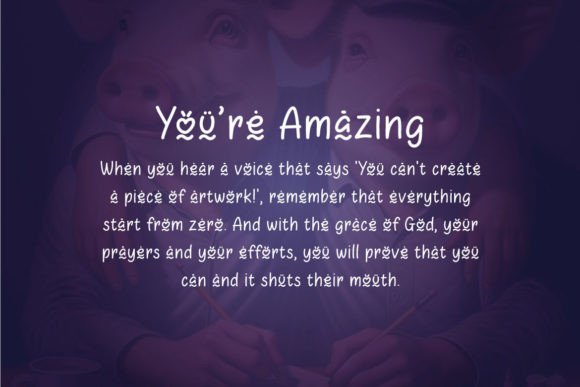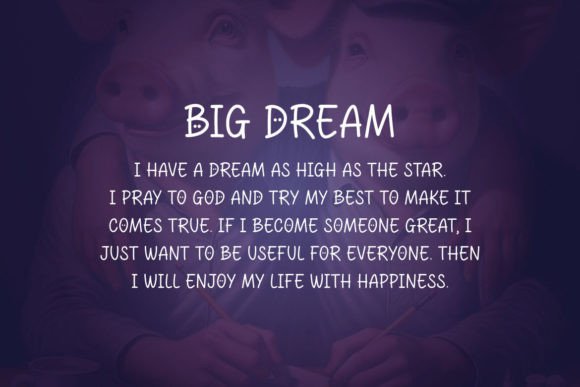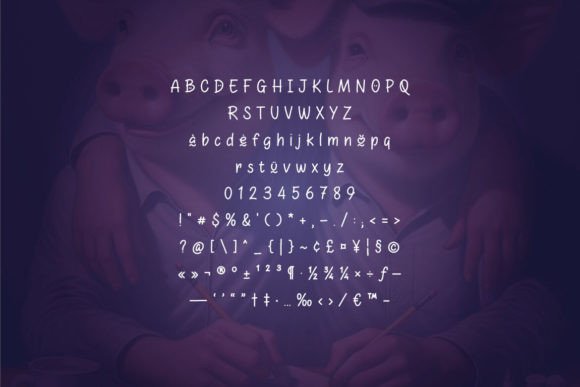
Introducing Brother Pig: The Ultimate Comic Font for Creative Projects
Have you ever been working on a design project, and suddenly, you realize that it’s missing that special something? Maybe it’s a children’s book, a comic, or a greeting card, and you just can’t seem to find the right font to bring it to life. I know I have! It was during one of those moments that I stumbled upon Brother Pig, a fun and cute comic font that instantly added a playful vibe to my designs.
The Brother Pig Difference
Brother Pig is more than just a font – it’s a character in its own right. With its rounded letters and whimsical style, it’s perfect for projects that need a touch of humor and joy. The bold lines and friendly appearance make it stand out, while its easy-to-read design ensures that your message is conveyed clearly. Whether you’re working on a children’s book, comic, greeting card, invitation, poster, or any other project, Brother Pig is sure to bring a charming, light-hearted feel to your creative work.
What I Love About Brother Pig
- ✨ Playful and Whimsical Design: The font’s rounded edges and friendly appearance make it perfect for projects aimed at a younger audience or those that require a touch of humor.
- ✅ Easy to Read: Despite its playful nature, Brother Pig remains clear and easy to read, making it suitable for a wide range of applications.
- 💡 Versatile: From children’s books to comics, greeting cards, and posters, Brother Pig can be used in various creative projects.
While Brother Pig is an excellent font, there are a few things to keep in mind:
- 🤔 Limited Formality: Due to its playful nature, Brother Pig might not be the best choice for projects that require a formal or professional tone.
- ⚠️ Overuse: As with any font, using Brother Pig excessively can make your design look monotonous. It’s essential to balance it with other design elements.
One of the exciting aspects of Brother Pig is its support for OpenType features and glyphs. These features allow you to customize your text with stylistic alternates, ligatures, and more. For example:
- Stylistic Alternates: Some letters may have alternate versions that you can use to add more variety to your text.
- Ligatures: Brother Pig may include ligatures for common letter combinations, making your text more fluid.
The Backstory Behind Brother Pig
The inspiration behind Brother Pig comes from a desire to create a font that embodies the joy and playfulness of childhood. Imagine a friendly pig with a penchant for storytelling and a love for making people smile. This font aims to bring that character to life in your designs, making them instantly more engaging and fun.
Q: Is Brother Pig suitable for professional projects?
A: While Brother Pig is playful and fun, it might not be suitable for all professional projects, especially those requiring a formal tone. However, it can work well for creative and innovative professional projects that aim to connect with a younger audience or convey a light-hearted message.
Q: Does Brother Pig support OpenType features?
A: Yes, Brother Pig supports OpenType features, including stylistic alternates and ligatures, allowing for more customization of your text.